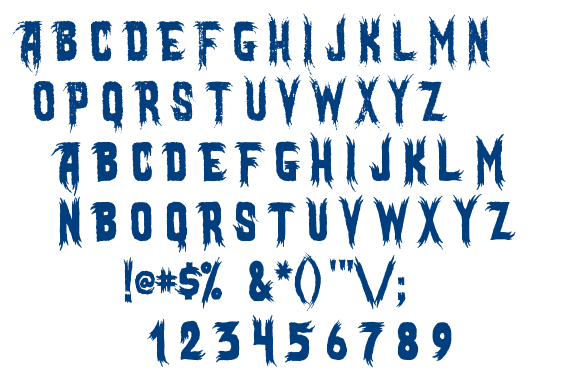
Tiny Small Medium Large Mostly Ghostly font Sinister Visions Website Mostly-Ghostly.ttf Download 2346 downloads Freeware Category: Fancy » Horror Mostly Ghostly font. Created 2010, hand-lettered as an homage to classic horror movie poster fonts. Character Map specimen sheet